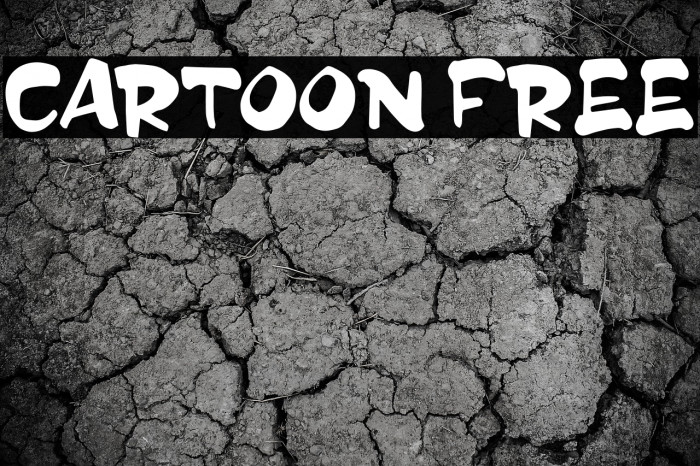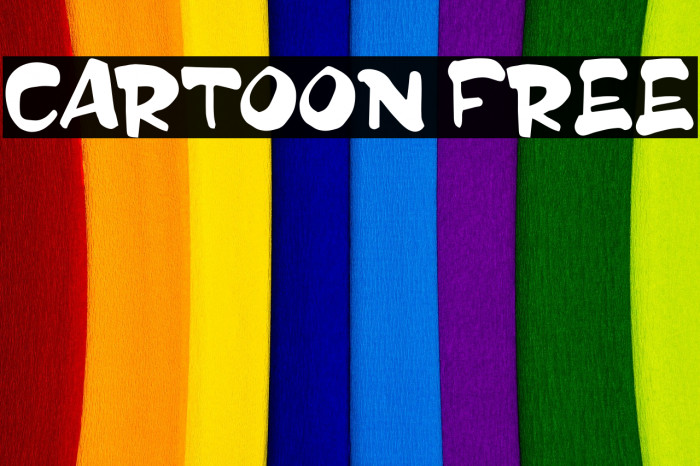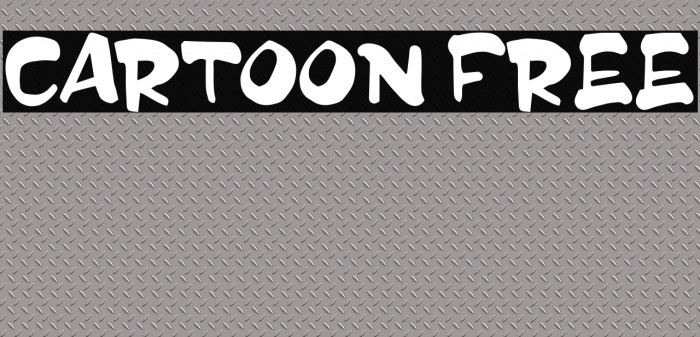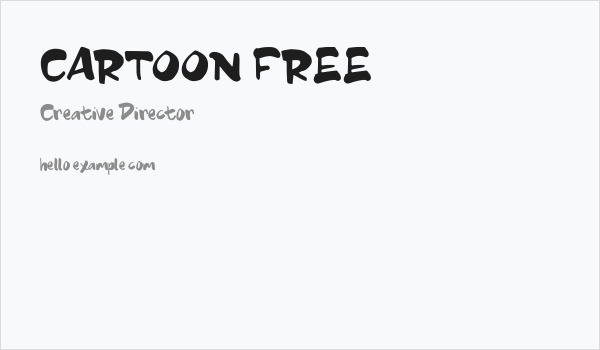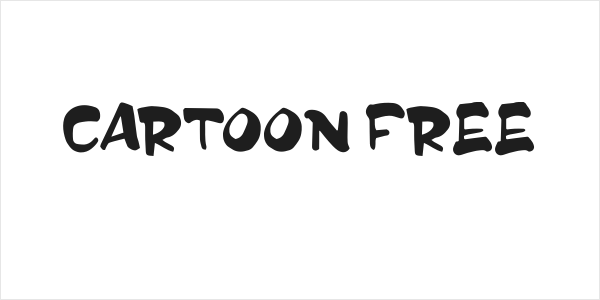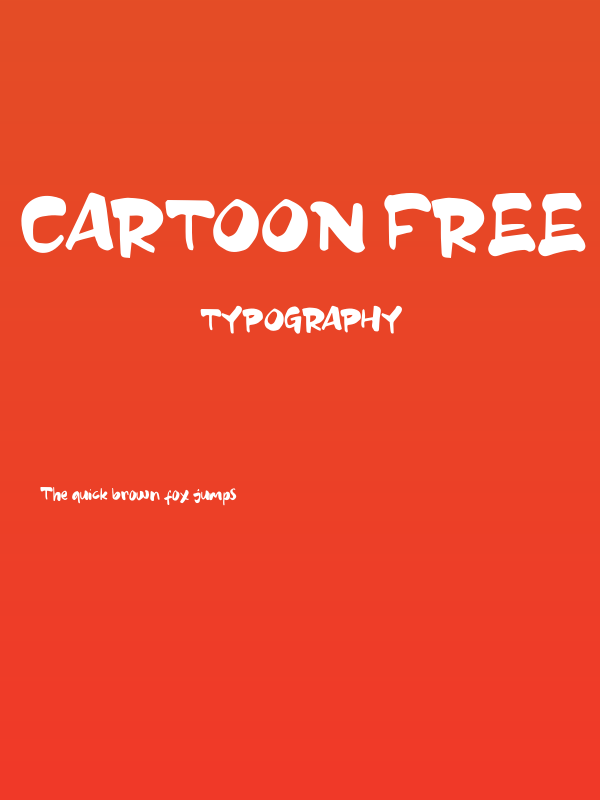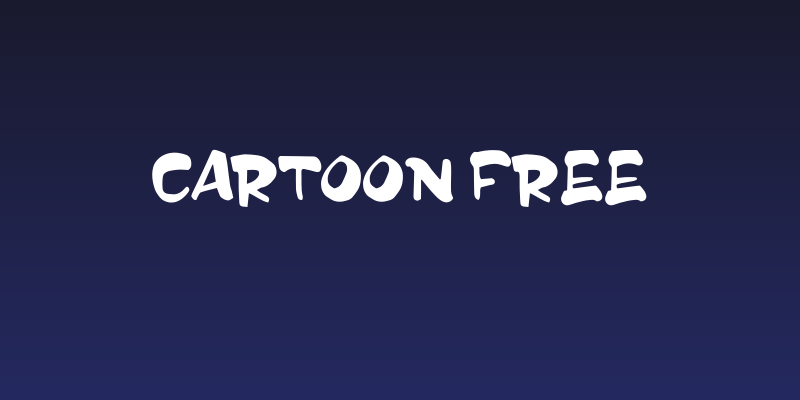
CARTOON FREE Font
CARTOON FREE Description
This playful and bold font features a hand-drawn style with thick, uneven strokes that give it a lively and energetic appearance. The characters are slightly irregular, adding to its whimsical and informal charm. The uppercase and lowercase letters maintain a consistent style, with rounded edges and a slightly exaggerated form that enhances its cartoonish feel. The font's design is well-suited for projects that require a fun and approachable aesthetic, making it ideal for children's books, comic strips, and playful branding. Its boldness ensures readability while the unique character shapes add personality and flair.
| Proposed Projects | Ideal for children's books, comic strips, playful branding, and informal invitations. |